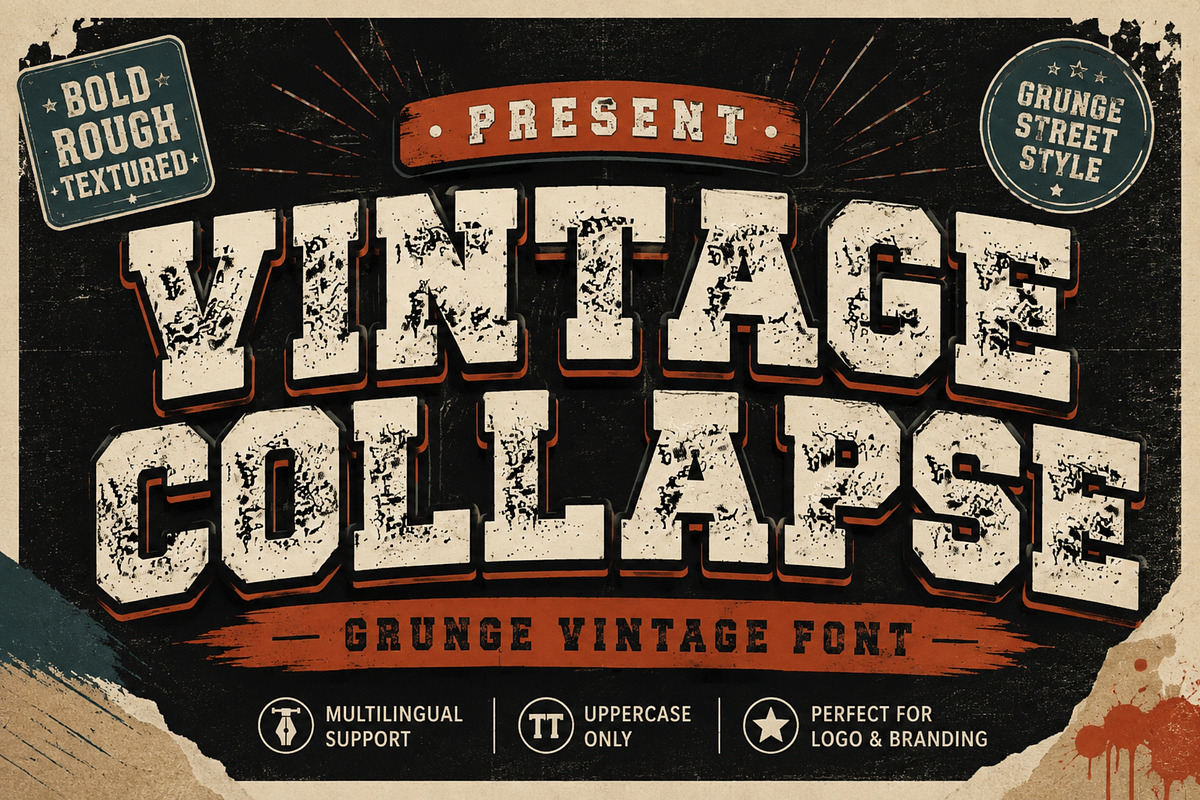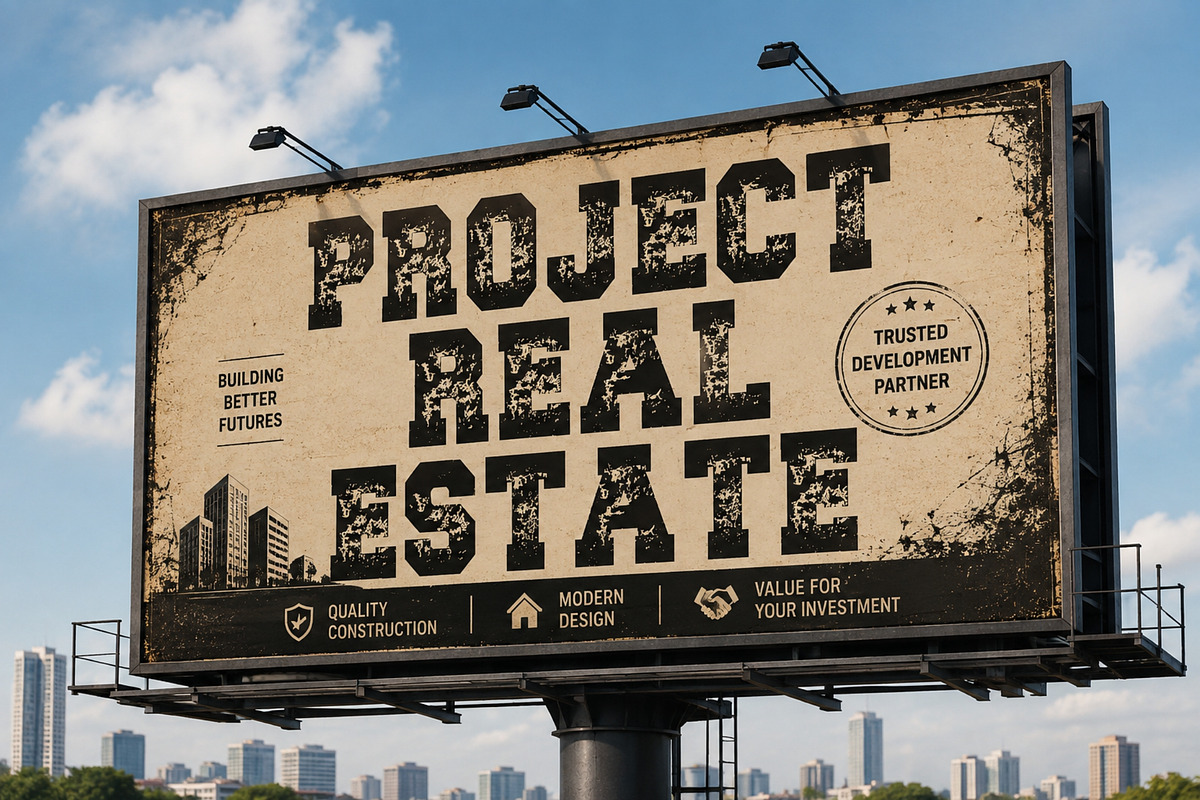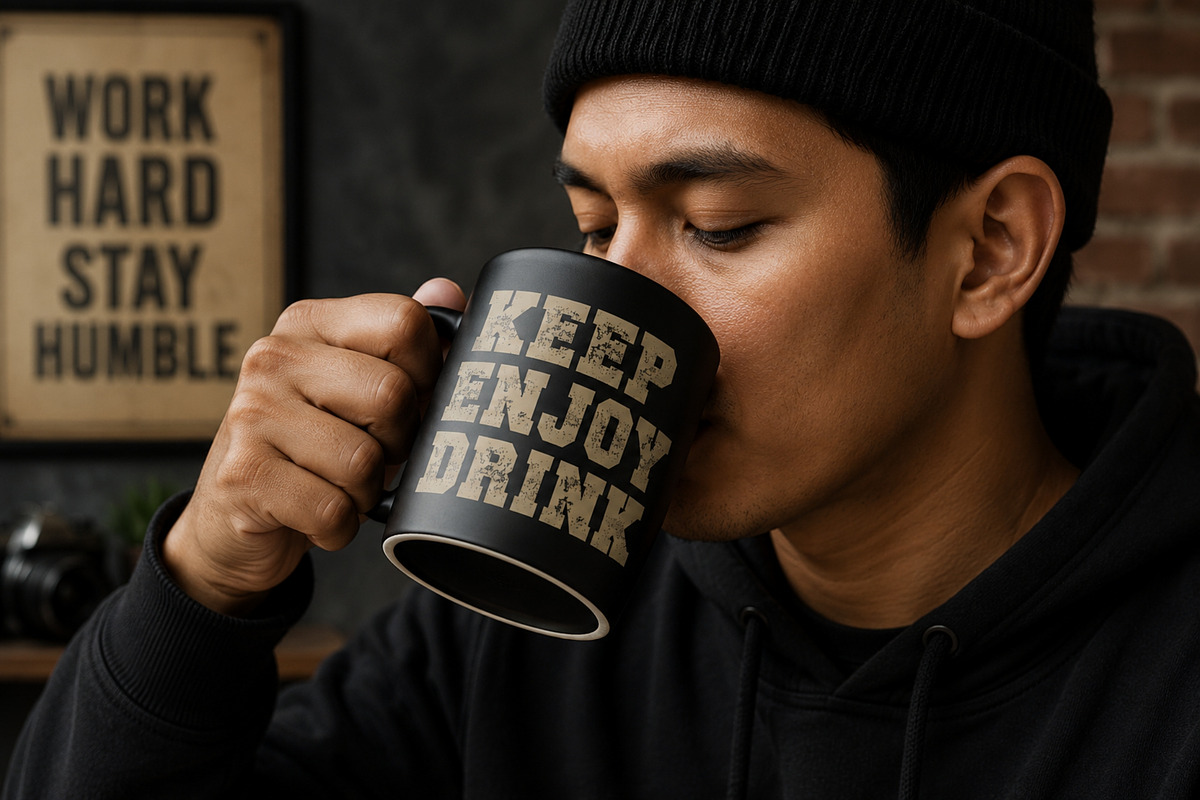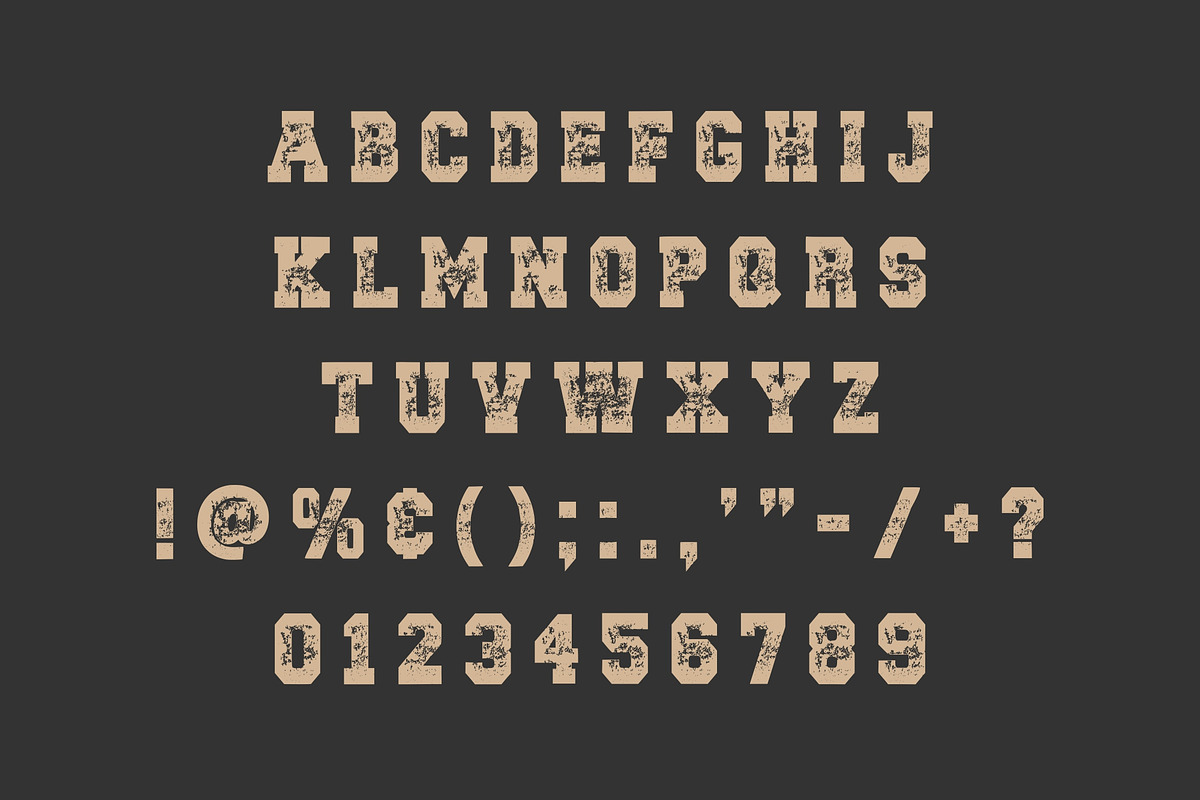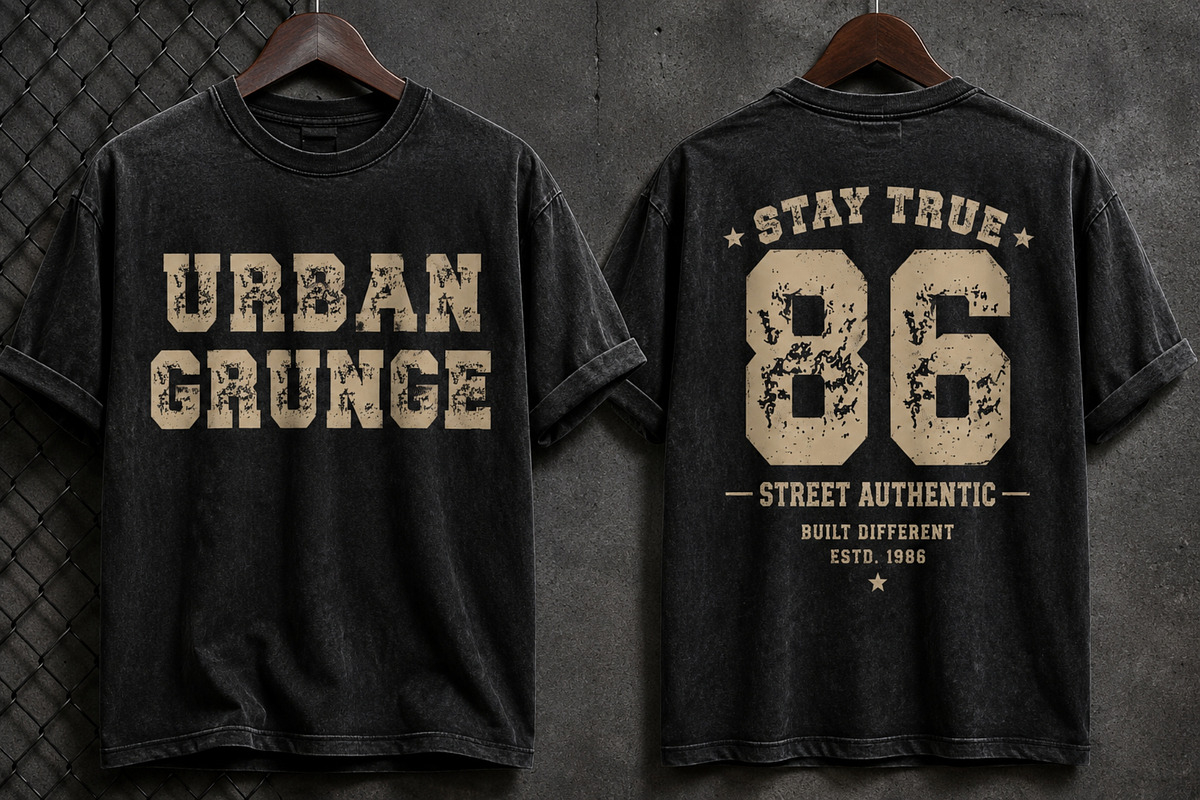
Vintage Collapse – Bold Distressed
Vintage Collapse is a powerful distressed display typeface created for designers looking to add an authentic vintage and grunge feel to their projects.
With its bold block structure and heavily weathered texture, this font delivers a rugged, aged, and rebellious appearance. It works especially well for streetwear graphics, vintage posters, logos, apparel designs, badges, labels, packaging, album artwork, and branding projects.
Vintage Collapse is designed to make headlines and display typography instantly stand out while maintaining a strong old-school character.
T-Shirt & apparel designs
Streetwear branding
Vintage posters
Grunge artwork
Logos & branding
Badges & labels
Packaging
Album covers
Stickers
Signage